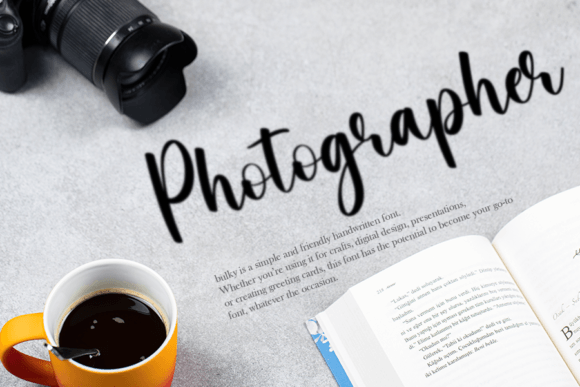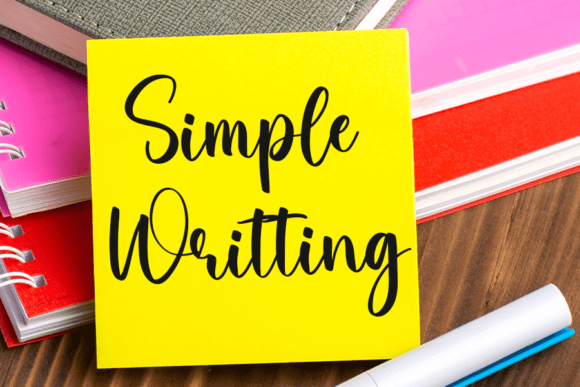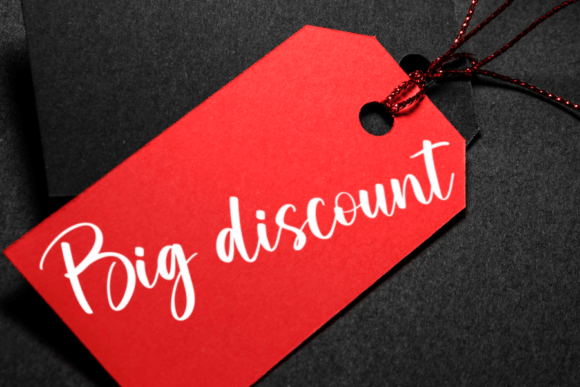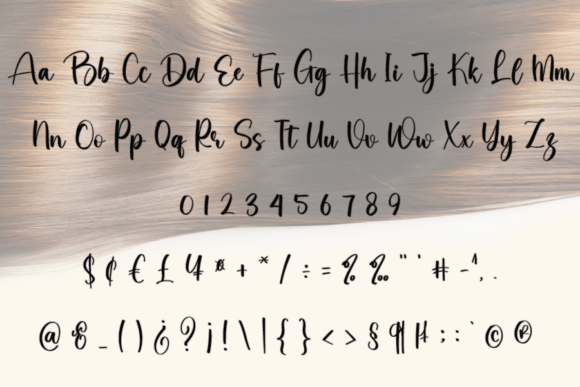
Bulky Font: Elevate Your Designs with a Stylish Handwritten Touch
In the realm of typography, a well-chosen font can make all the difference in the aesthetic and effectiveness of a design project. For those seeking a stylish, handwritten font that exudes a contemporary atmosphere while maintaining an air of classic sophistication, Bulky Font is an exceptional choice. Inspired by timeless classic calligraphy, Bulky brings a balanced and varied approach to enhancing the beauty of your projects.
The Essence of Bulky Font
Bulky Font is not just any ordinary typeface. It is a meticulously crafted, stylish handwritten font that captures the essence of modern calligraphy with a nod to traditional elegance. The design of Bulky is characterized by its impeccable form, ensuring that each letter and word flows harmoniously, making it a delight to read and behold.
Key Features of Bulky Font
- Contemporary Atmosphere: Bulky achieves a rare balance of being modern and stylish while retaining an element of timelessness. Its contemporary vibe makes it perfect for designers looking for a font that feels current and fresh.
- Inspired by Classic Calligraphy: The font’s roots in classic calligraphy give it an air of sophistication and elegance. This inspiration is evident in its fluid strokes and classic letterforms, which add a touch of refinement to any project.
- Balanced and Varied: One of the standout features of Bulky Font is its balance and variation. The font offers a range of weights and styles, allowing designers to play with hierarchy and emphasis in their work, creating visually appealing and dynamic compositions.
Applications of Bulky Font
The versatility of Bulky Font makes it suitable for a wide array of design applications. Whether you’re working on:
- Branding and Logotypes: Bulky’s unique and stylish appearance makes it an excellent choice for logos and brand identities that require a personal touch.
- Packaging Design: The font’s elegance and readability ensure that it stands out on product packaging, enhancing brand visibility and appeal.
- Digital Media: From website headers to social media graphics, Bulky Font adds a sophisticated flair to digital content, making it more engaging and professional.
- Print Materials: For brochures, posters, and business cards, Bulky offers a distinctive look that can help any printed material stand out.
Why Choose Bulky Font?
In a sea of typefaces, Bulky Font stands out for several reasons:
- Legibility: Despite its stylized nature, Bulky maintains high legibility, making it practical for both headings and body text.
- Uniqueness: It offers a fresh take on handwritten fonts, providing designers with a unique alternative to more traditional typefaces.
- Versatility: Its range of applications, from digital to print, makes Bulky a valuable addition to any designer’s font library.
Bulky Font is a stylish handwritten font that brings a contemporary atmosphere and classic elegance to design projects. Its impeccable form, balanced and varied approach, and wide range of applications make it a versatile and valuable tool for designers and crafters. Whether you’re aiming to create a brand identity, design packaging, or simply add a personal touch to digital content, Bulky Font is an excellent choice. Elevate your designs with the sophisticated and modern appeal of Bulky Font.